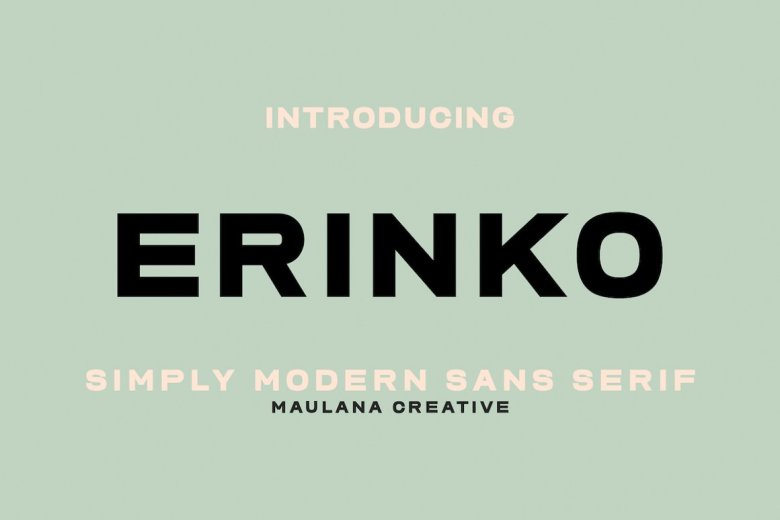
Erinko Font
Erinko is an old but intelligent sans serif typeface. It’s highly legible low contrast stroke, designed fun character with a few ligatures and alternates. Just for your creative work. Over 100 languages are supported by Erinko font.
This font is suitable for logo design, Social media, Movie Titles, Books Titles, not only that though: a short text, even long letter or other texts are OK too; as long and your secondary font is sans or serif. Just try using the Erinko font, it looks fabulous.
Erinko Sans Serif Font